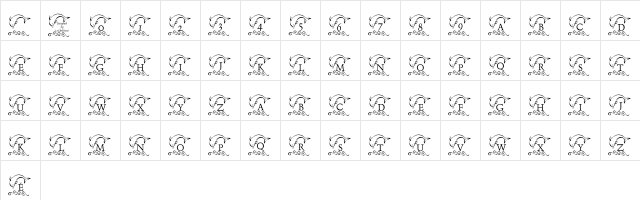
LCR Playful Dolphin Regular
Design Context for LCR Playful Dolphin Typeface
LCR Playful Dolphin has an approachable, lighthearted character — its loose, expressive forms are well-suited to children's content, casual branding, and fun-first design.
Font Pairing: Pairs well with a rounded or humanist sans for body copy, maintaining the friendly tone without relying on LCR Playful Dolphin to carry extended reading.
Pro Tip: Avoid using LCR Playful Dolphin for long passages of text — it works best for headlines, labels, and short calls to action.